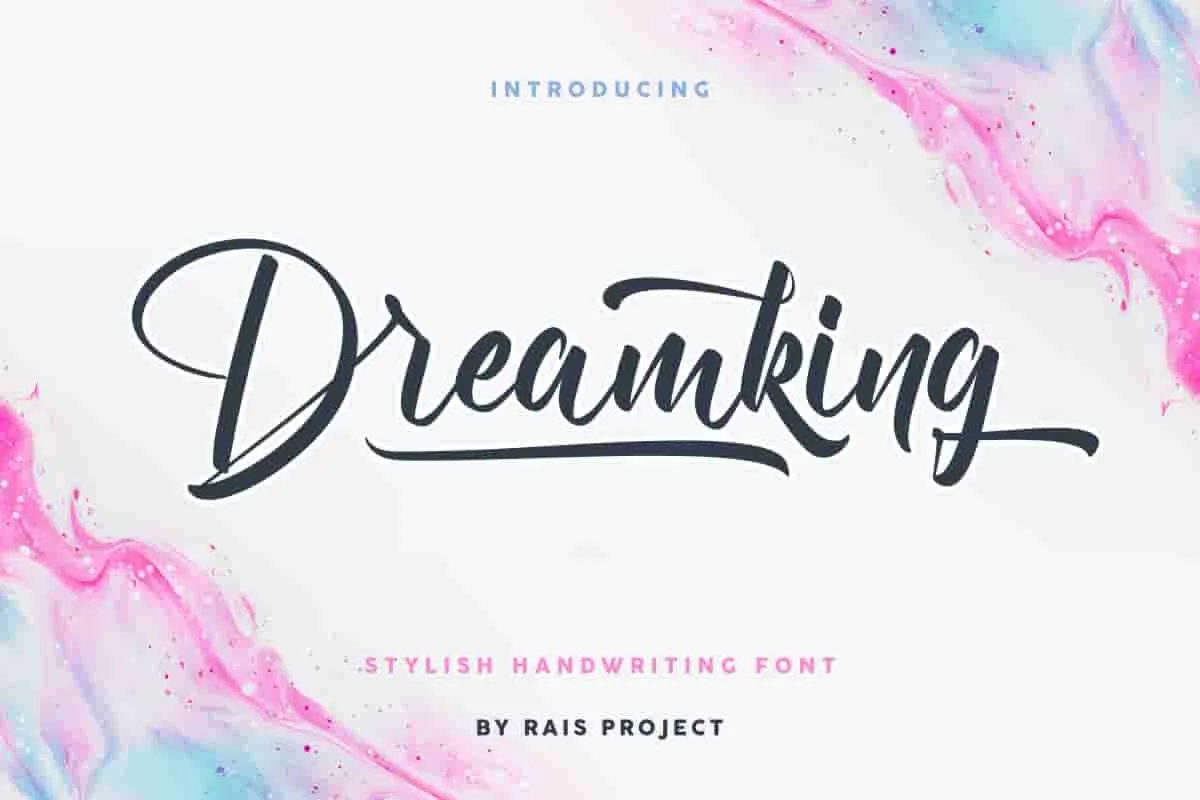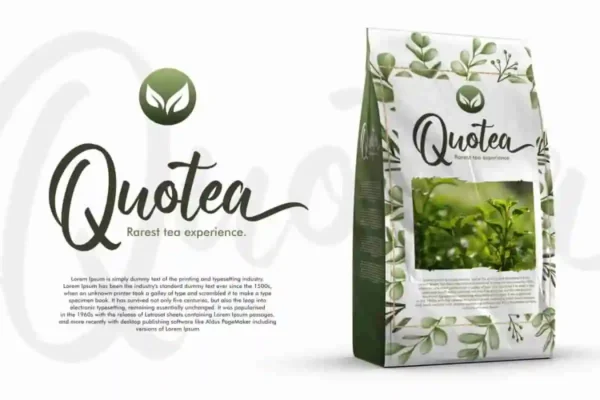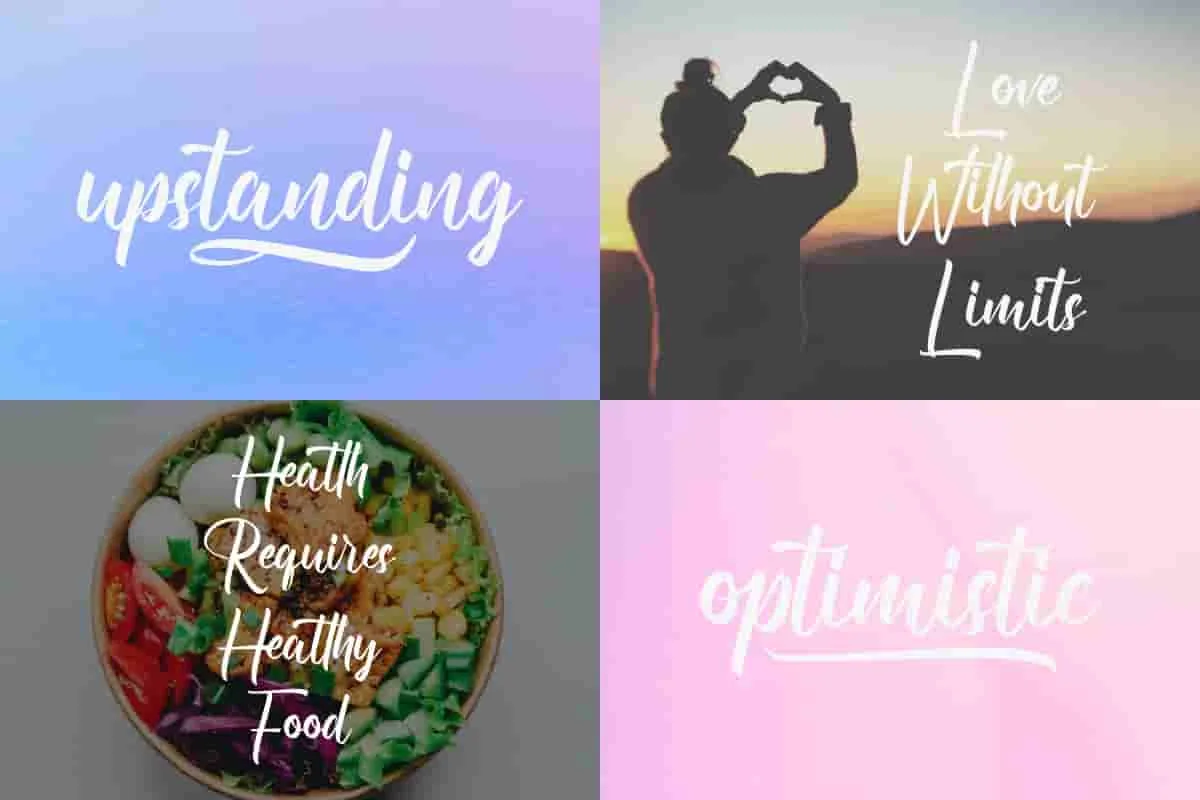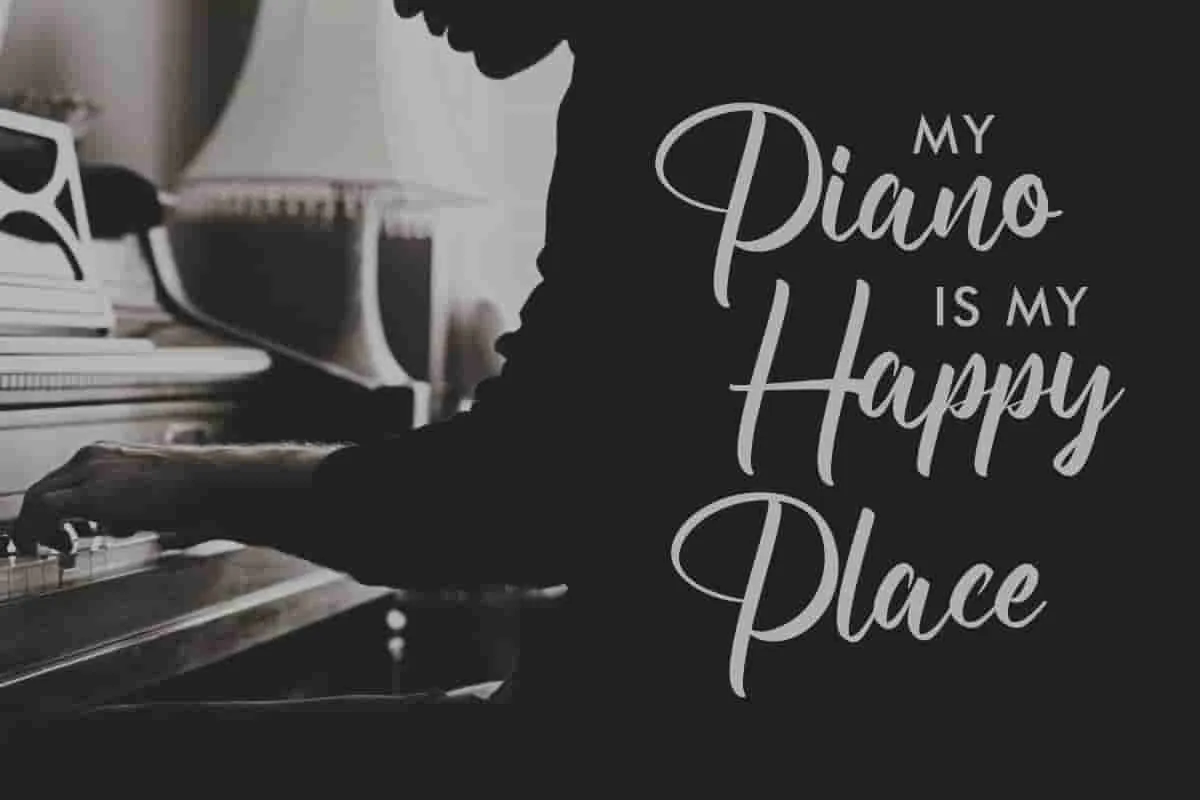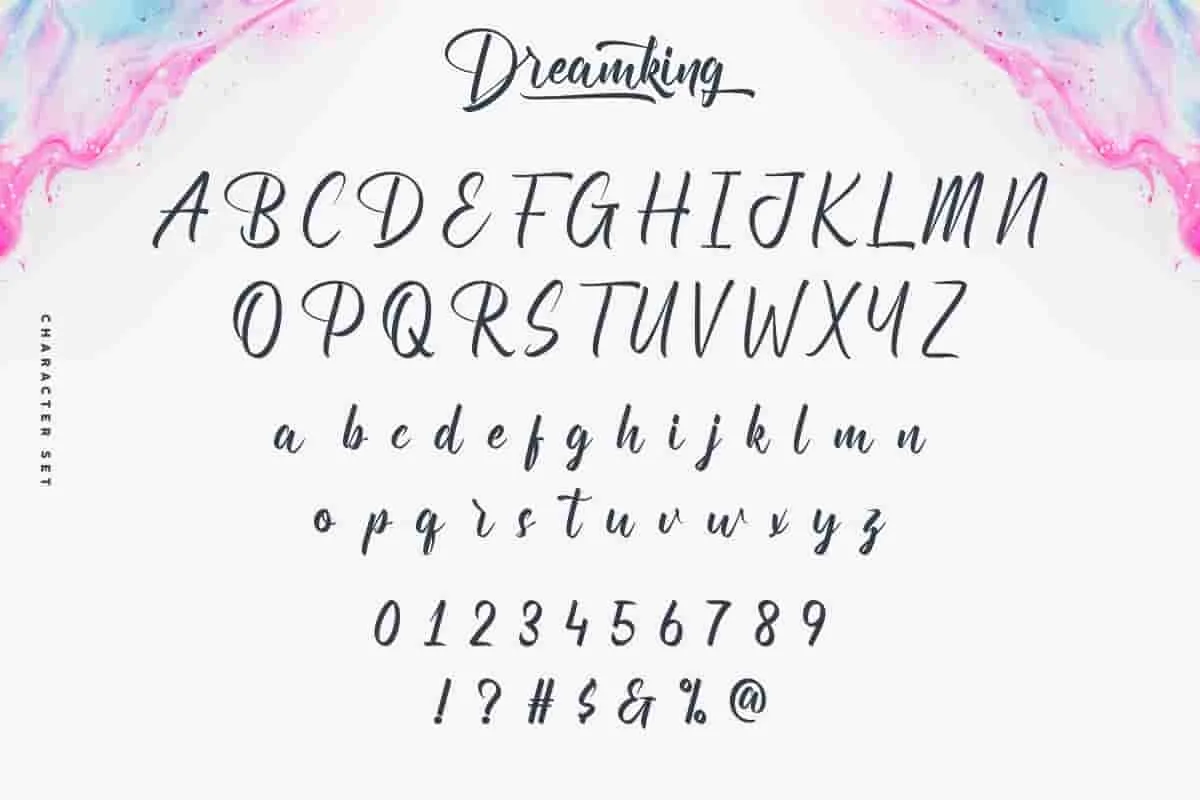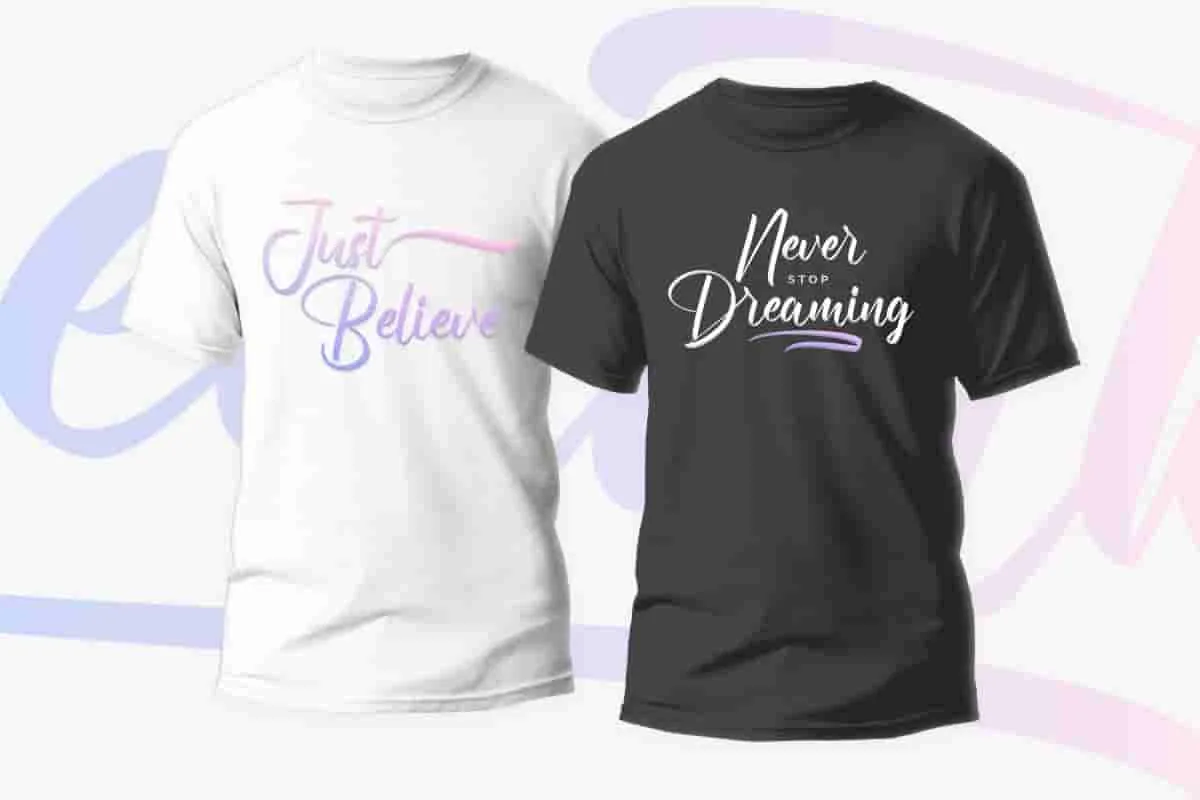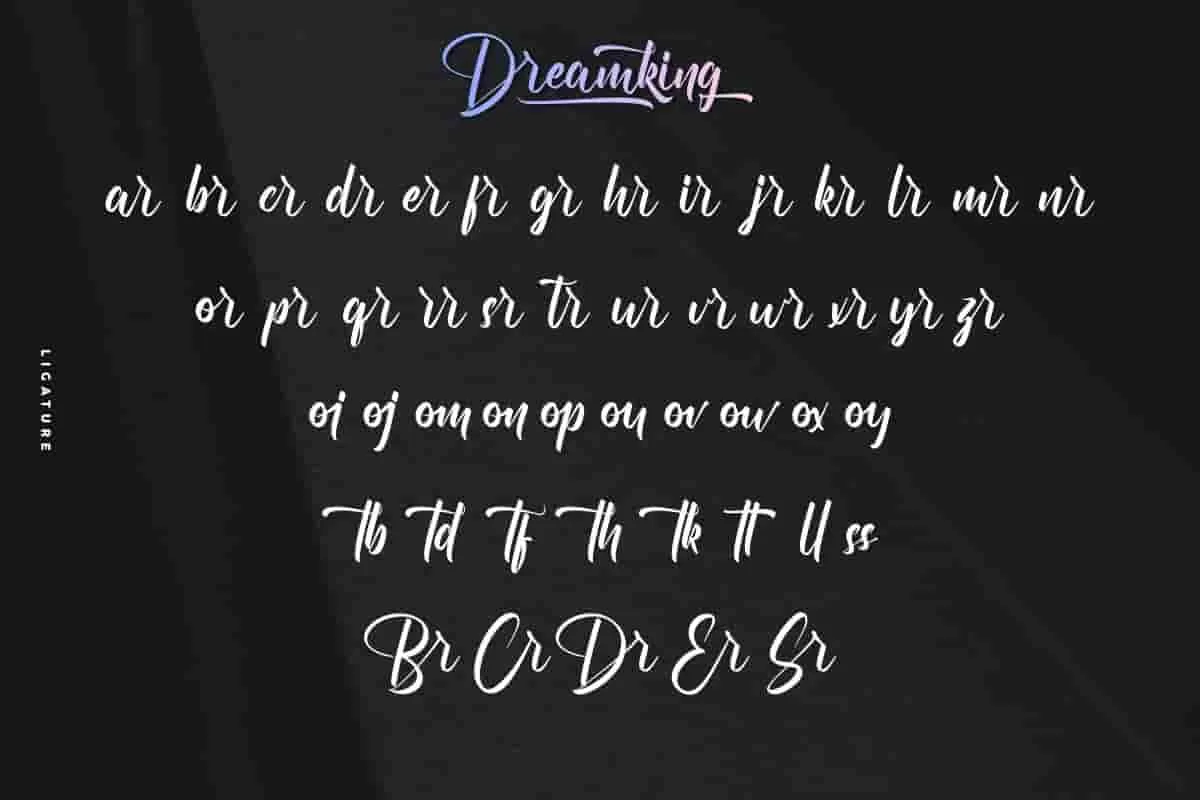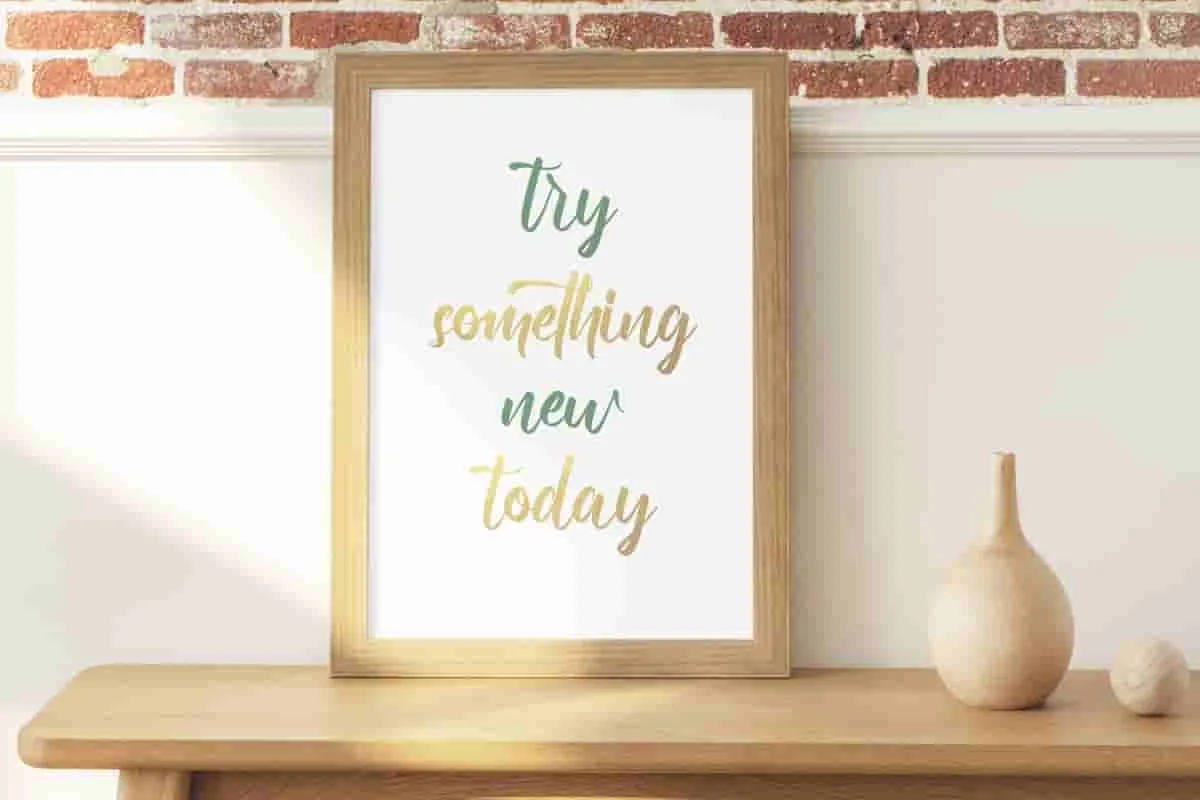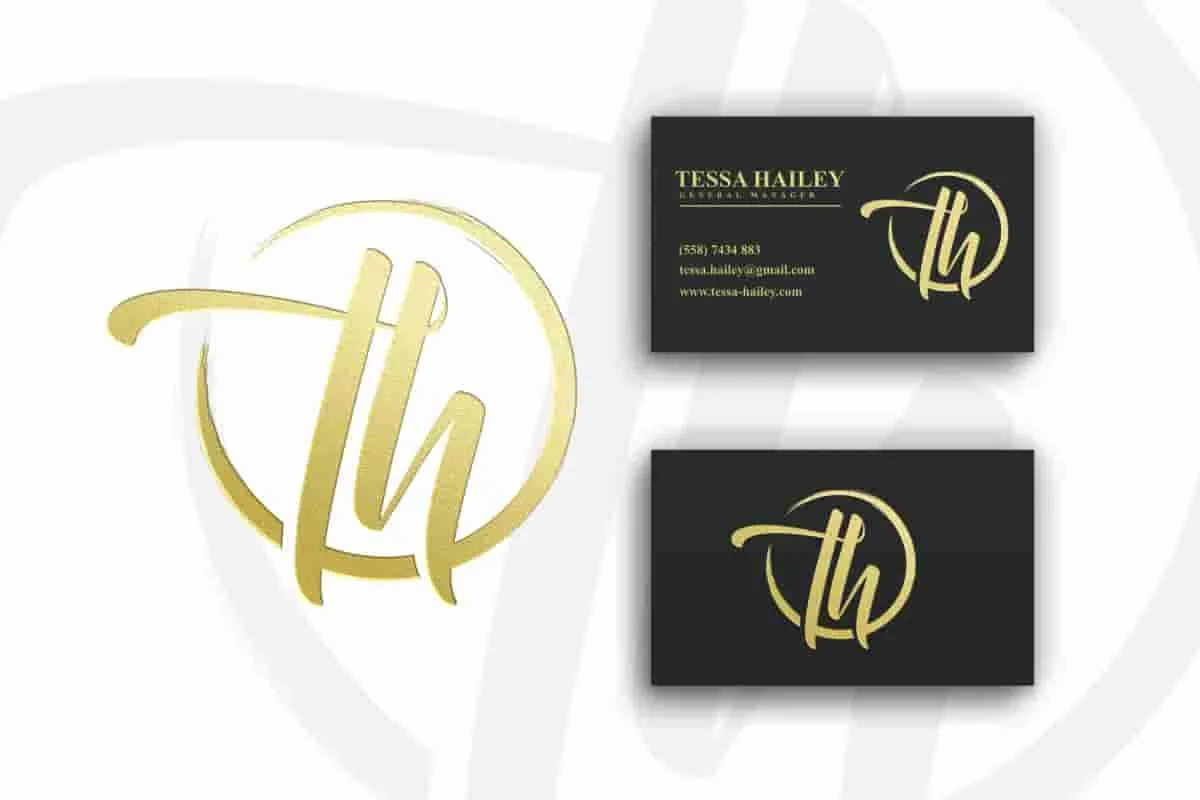
Dreamking Calligraphy Font
Dreamking Font is an beautiful handwritten Calligraphy Font by RaisProject.With exclusive characters, it will be stunning for any your special projects including : weddings, promotion, events, branding, advertising etc
Dreamking is a Original beautiful script font with calligraphic handwriting style. You can see the demo font below. You can also input any word you want so you can see what it will look like :
Dreamking Font made in Indonesia by Widi and Suci for RaisProject. The font handcrafted With beautiful characters, it will be stunning for any your special projects including : weddings, promotion, events, branding, advertising, magazine, shopping, signage, invitation, stationery, social media posts, product packaging, product designs, label, photography, watermark or and any projects that need calligraphy handwriting style. Dreamking Calligraphy Font includes full set of gorgeous uppercase and lowercase letters, numerals, a large range of punctuation and ligatures.You will get: